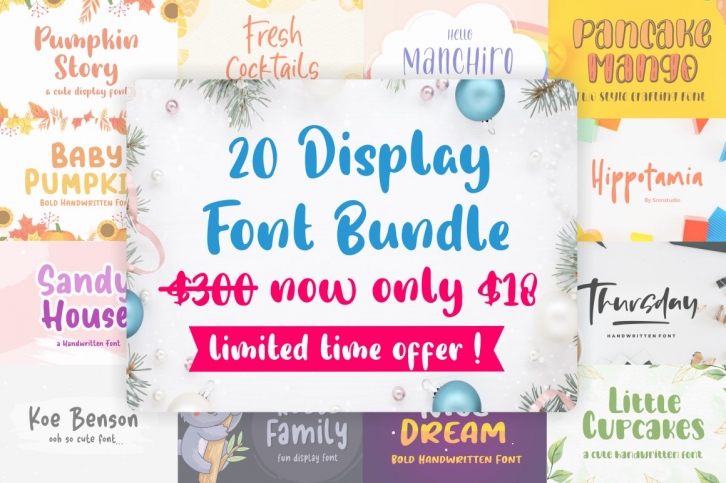
20 Display Bundle ! is a trendy and unique font with an authentic style. It was designed by Sronstudio and it's a great choice for creative people who need such a font. It was released on October 27, 2020 and the file size is 18.51 MB. 20 Display Bundle ! will add an organic vibe to any design idea!